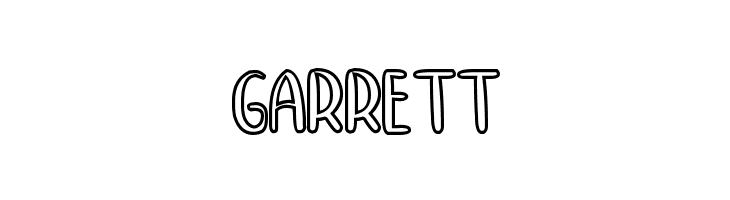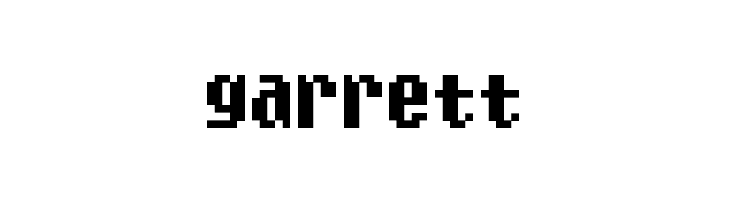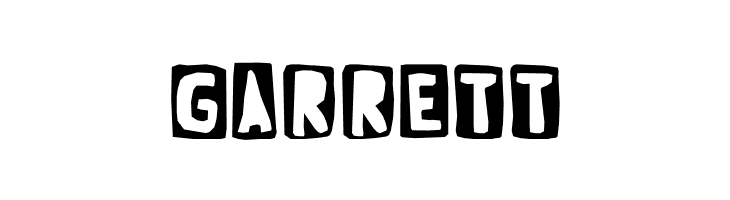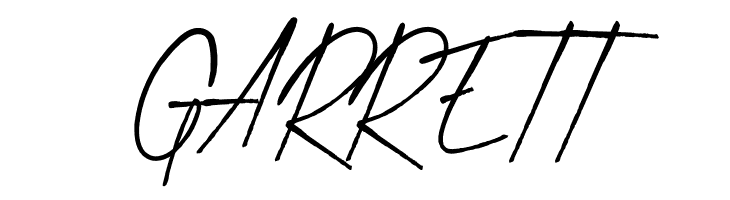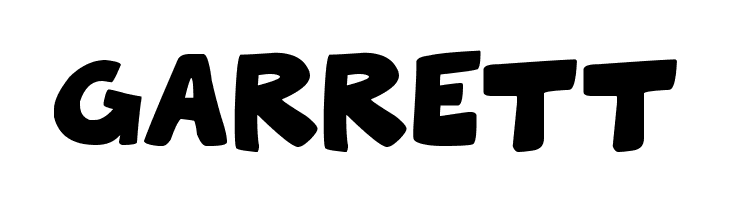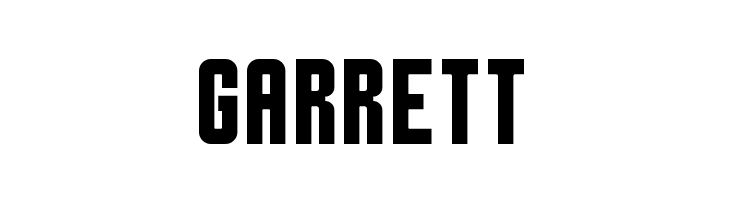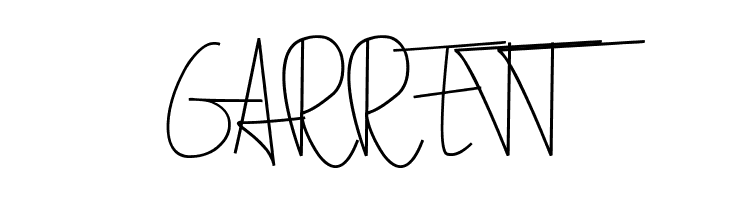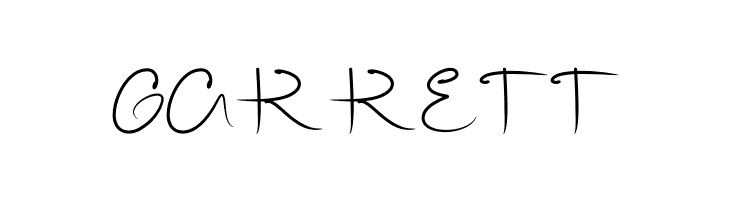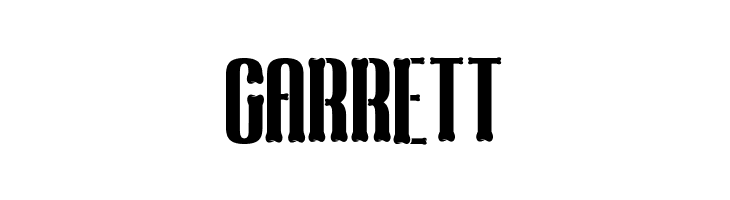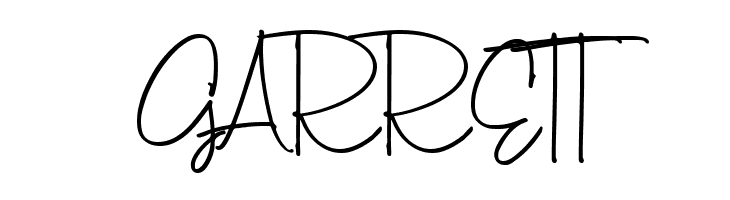
An elegant and sophisticated script font with flowing, cursive letters.
A playful, hand-drawn font with tall, narrow characters and a whimsical style.
An artistic and elegant font with elongated, narrow letterforms and decorative elements.
A bold, textured font with a distressed, vintage look.
A bold, textured font with a vintage, distressed style.
A casual, handwritten-style font with smooth, rounded strokes.
A bold, playful handwritten font with rounded strokes and a casual style.
A casual, handwritten font with smooth, flowing strokes and a friendly appearance.
A playful, casual handwritten font with smooth, flowing curves and expressive letterforms.
An ornate, ribbon-inspired script font with elegant flourishes.
A decorative ribbon-themed font with elegant, cursive lowercase letters.
A flowing, cursive font with elegant, connected letters and dynamic strokes.
A playful, hand-drawn font with a whimsical and casual style.
A bold, gothic-style font with ornate flourishes and a dramatic presence.
A bold, blackletter-style font with ornate flourishes and strong, angular strokes.
A bold, expressive script font with fluid, interconnected strokes.
A dynamic, brush-style cursive font with expressive strokes.
A bold, modern sans-serif font with clean lines and strong readability.
A bold, 3D gradient font with a futuristic, retro video game style.
A bold, geometric font with strong, angular lines and a blocky appearance.
A decorative and artistic font with geometric patterns and bold, angular shapes.
A bold, geometric sans-serif font with a modern and clean design.
A bold, geometric font with sharp angles and dynamic cutouts.
A bold, geometric font with sharp angles and unique cutouts.
A sleek, modern sans-serif font with smooth curves and a clean design.
A bold, rounded font with a modern and playful style.
A bold, italic font with a modern and dynamic style.
A bold, modern sans-serif font with smooth, rounded edges and consistent character spacing.
A bold, italicized font with smooth, rounded edges and a modern, sleek appearance.
A bold, rounded font with a modern and playful style.
A bold, italic font with a dynamic and modern style.
A sleek, modern font with elongated, narrow characters and a minimalist design.
A sleek, modern italic font with thin, elongated characters.
A modern, italicized font with smooth curves and a sleek design.